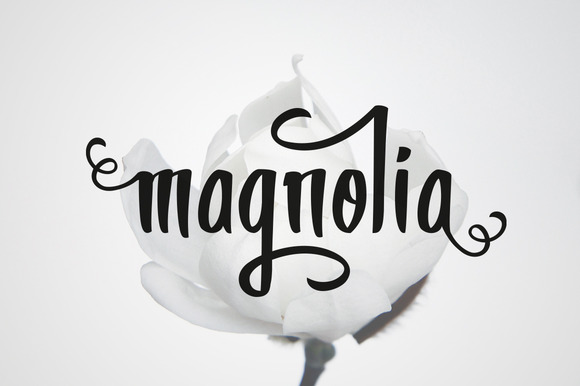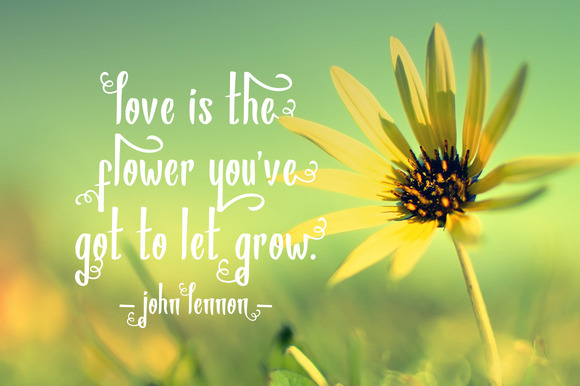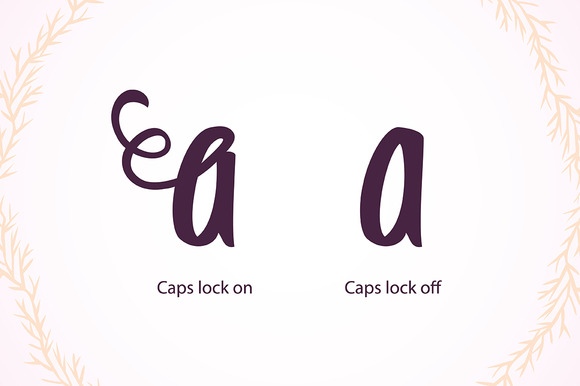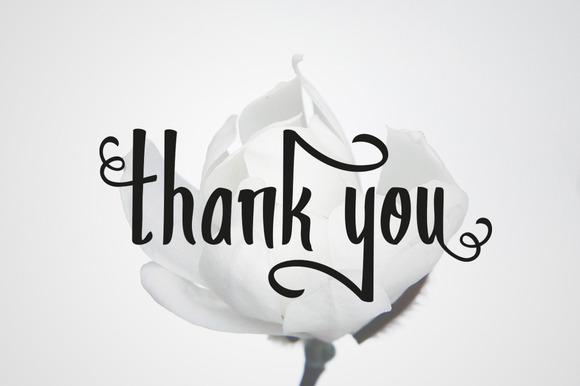
Magnolia Font
Magnolia is a lowercase-only brush script font which is has low x-height and high ascender. it can be used for many purposes such as heading, wedding invitation, poster, t-shirt, etc.
The Uppercase of this font is an initial form of every character in lowercase. Other features are Stylistic alternates, terminal form, and multilingual support.